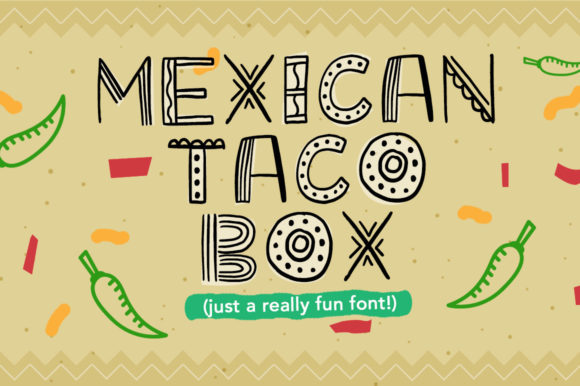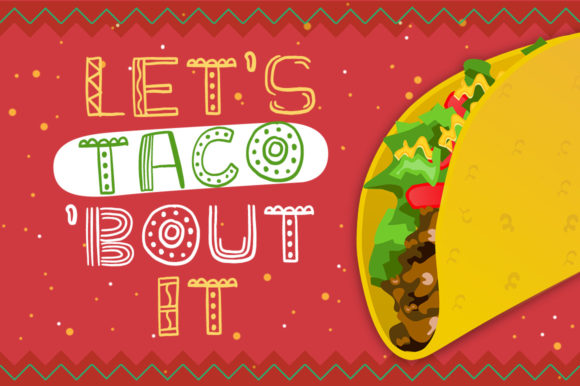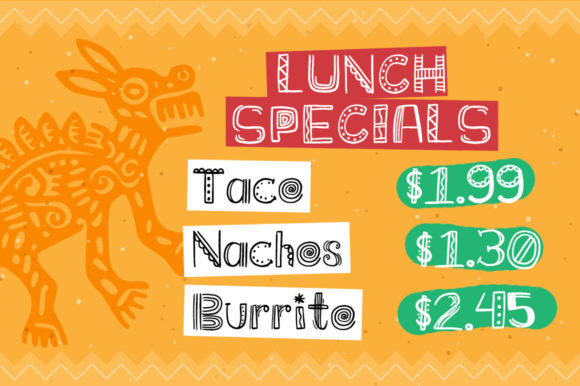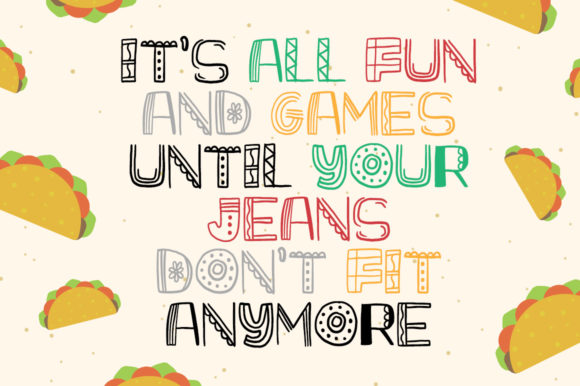
Mexican Taco Box Font
About the Mexican Taco Box Font
We are excited to introduce Mexican Taco Box Font, a must-have typeface for any serious designer. The Mexican Taco Box just oozes with flavor and spice. It’s a fun, loud, and eccentric font that’s perfect for adding that heat to your design projects: posters, magazines, food recipes, party invitations, and all other things that need this fun display type!
Mexican Taco Box excels as a display font for headlines, short slogans, and branding elements where a bold, playful personality is desired. Its quirky charm works well on packaging for food products, posters for events, and even social media graphics. However, its highly decorative nature makes it unsuitable for body text or UI elements requiring high readability. Long paragraphs set in this font would be extremely difficult to read.
This font’s energetic, slightly irreverent style pairs well with clean sans-serif fonts like Open Sans for body copy, providing a strong contrast and visual balance. For a more playful feel, consider pairing it with a rounded geometric sans-serif such as Circular Std. If a more sophisticated look is needed, a classic serif like Garamond or a delicate script font could add a touch of elegance without overpowering the Taco Box’s vibrant energy.
In short, the font’s core personality is bold, playful, and undeniably fun, making it ideal for brands and projects that want to convey a spirited, slightly mischievous, and undeniably appetizing aesthetic.
Mexican Taco Box Font Usage Examples
Mexican Taco Box Font Example